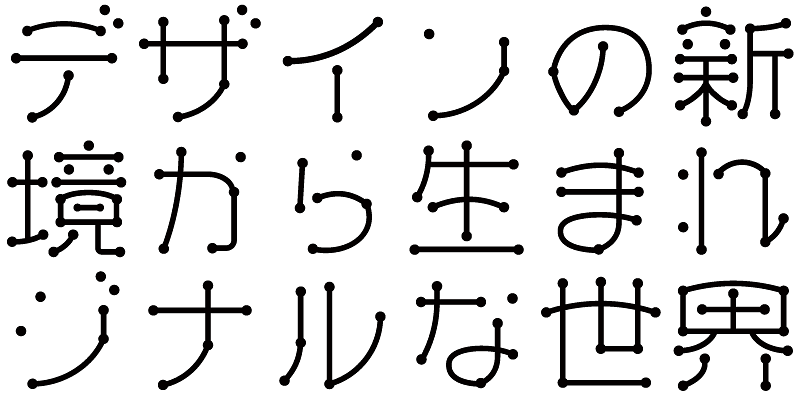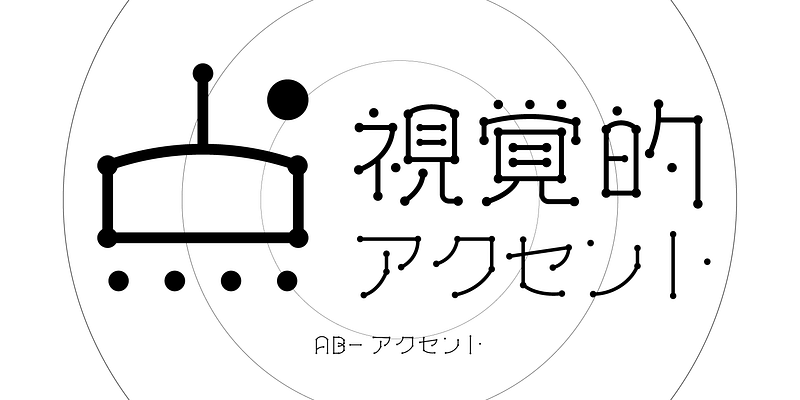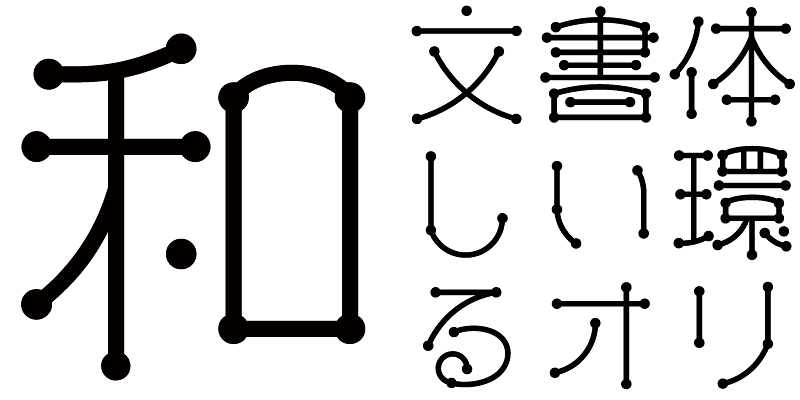
This typeface features a light and cute design, with rounded accents at the ends and corners of the lines.
Some straight strokes are replaced with dots to emphasize a sense of lightness.
It also has a slightly retro feel, and can be used for a wide range of purposes, such as playful titles and video captions.